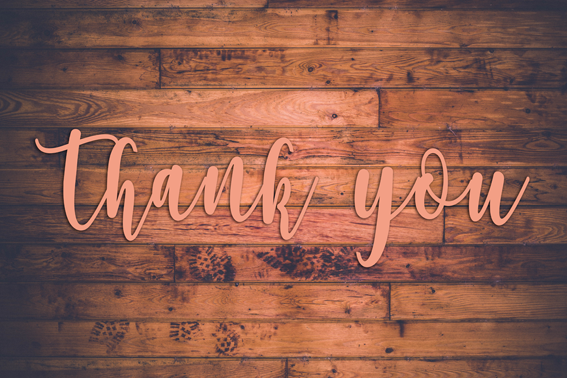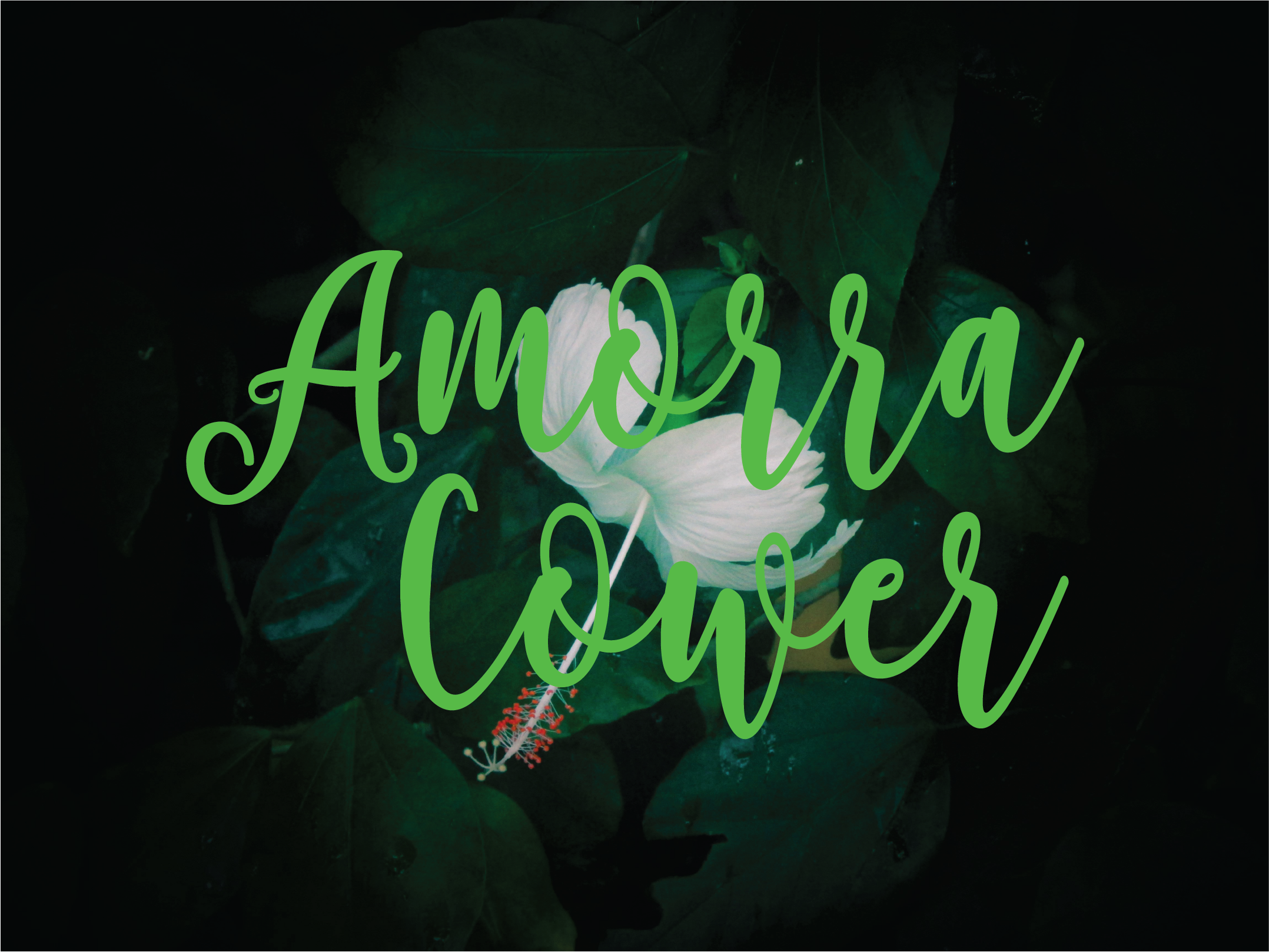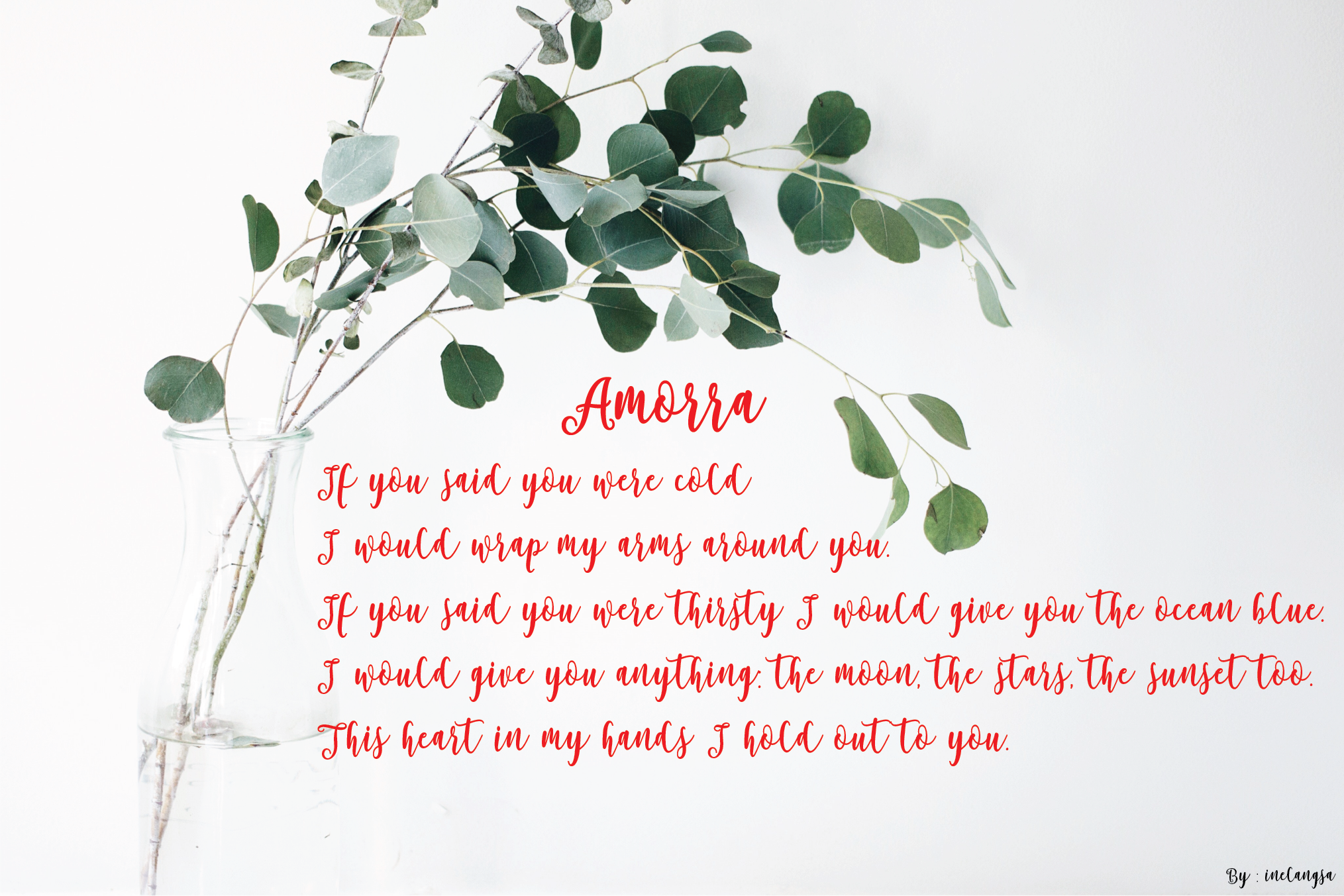
Introducing Amorra Font: The Ultimate Casual Script Font for Designers and Crafters
Are you tired of using the same old fonts in your designs? Look no further! Amorra Font is here to shake things up with its enticing and lovely script style that’s perfect for adding a touch of casual appeal to your projects. This relaxed and thickly weighted script font is designed to handle a variety of uses and mediums, making it an adaptable addition to your font collection.
What Makes Amorra Font So Special?
Amorra Font is a unique and charming script font that’s perfect for designers and crafters looking for a fresh and modern look. Its casual appeal makes it ideal for a wide range of projects, from social media graphics and blog posts to branding materials and packaging design. The font’s thickly weighted lines give it a bold and confident look that’s sure to grab attention.
One of the standout features of Amorra Font is its versatility. Whether you’re creating a fun and playful design or a more formal and elegant one, this font can handle it all. Its relaxed and effortless style makes it perfect for adding a personal touch to your designs, while its bold lines ensure that it remains legible and easy to read.
Uses for Amorra Font
So, what can you use Amorra Font for? The possibilities are endless! Here are a few ideas to get you started:
- Social Media Graphics: Add a touch of personality to your social media posts with Amorra Font. Its casual appeal makes it perfect for creating engaging and shareable graphics.
- Branding Materials: Use Amorra Font to create unique and memorable branding materials, such as logos, business cards, and letterheads.
- Blog Posts: Add a personal touch to your blog posts with Amorra Font. Its relaxed style makes it perfect for creating engaging and easy-to-read content.
- Packaging Design: Use Amorra Font to create eye-catching packaging designs that stand out on store shelves.
- Invitations and Announcements: Create beautiful and elegant invitations and announcements with Amorra Font.
Why Designers and Crafters Love Amorra Font
Designers and crafters love Amorra Font for its unique and charming style, as well as its versatility and adaptability. Here are a few reasons why:
- Easy to Read: Despite its bold and thickly weighted lines, Amorra Font remains easy to read and legible, even at small sizes.
- Highly Versatile: Amorra Font can be used for a wide range of projects and mediums, from digital designs to print materials.
- Unique and Charming: Amorra Font has a unique and charming style that’s sure to add a touch of personality to your designs.
- Perfect for Handmade and DIY Projects: Amorra Font is perfect for handmade and DIY projects, such as craft tutorials, patterns, and instructions.
Don’t miss out on this adaptable handwritten script font! With its casual appeal, versatility, and charm, Amorra Font is the perfect addition to any designer’s or crafter’s font collection.